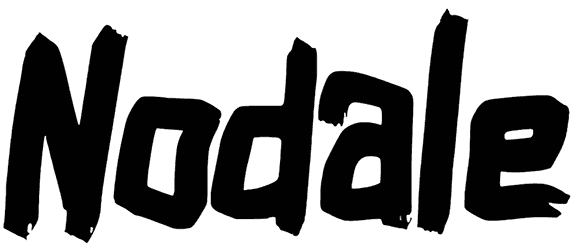
Nodale Font
Nodale is an impressive brush font that can take your design to the highest level. It is bold with an irregular baseline and naturally conveys a sense of strength. This font doesn’t support lowercase letters and numbers.…
Nodale is an impressive brush font that can take your design to the highest level. It is bold with an irregular baseline and naturally conveys a sense of strength. This font doesn’t support lowercase letters and numbers. You can use it for product packaging, social media, T-shirt printing, posters, and advertising purposes.